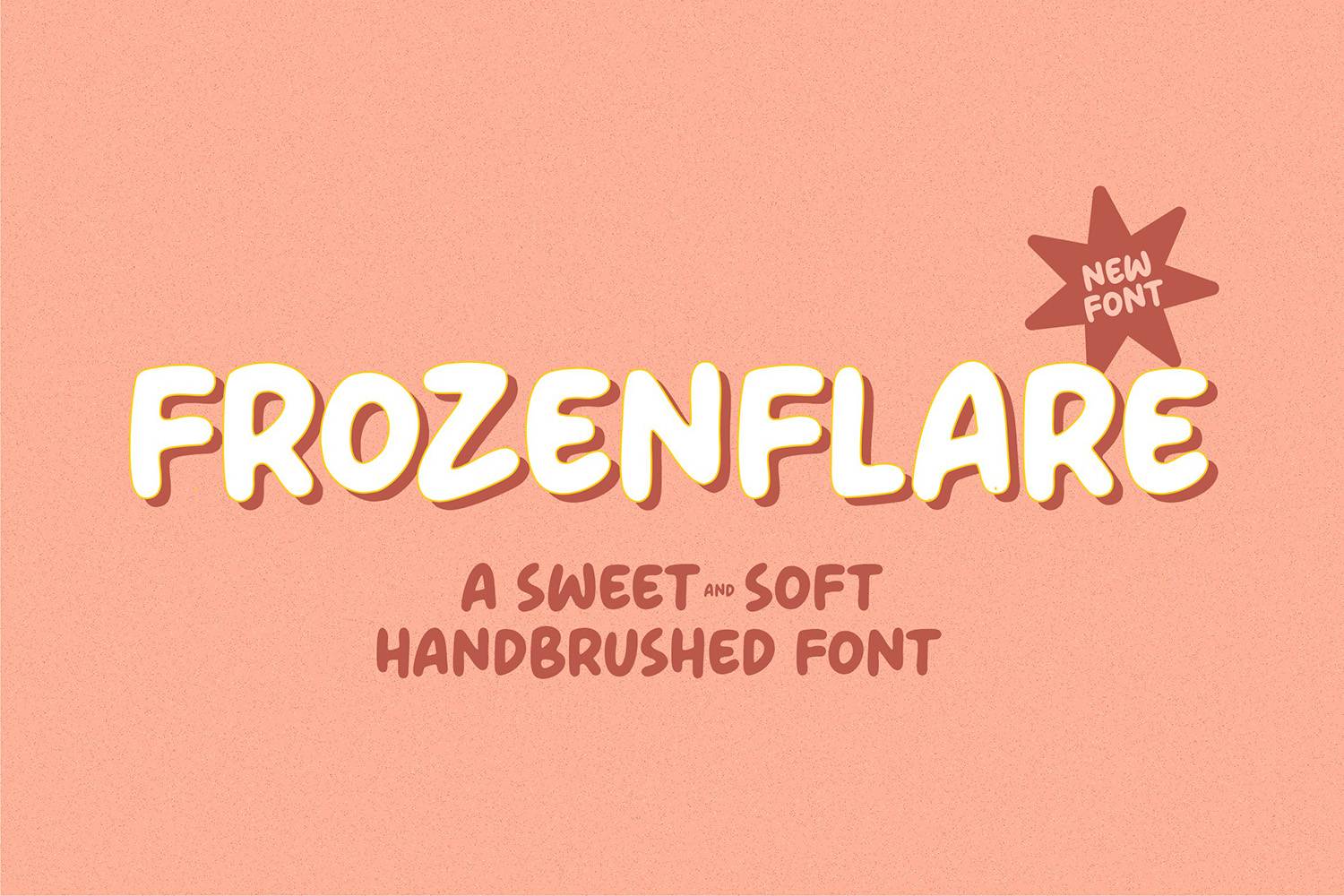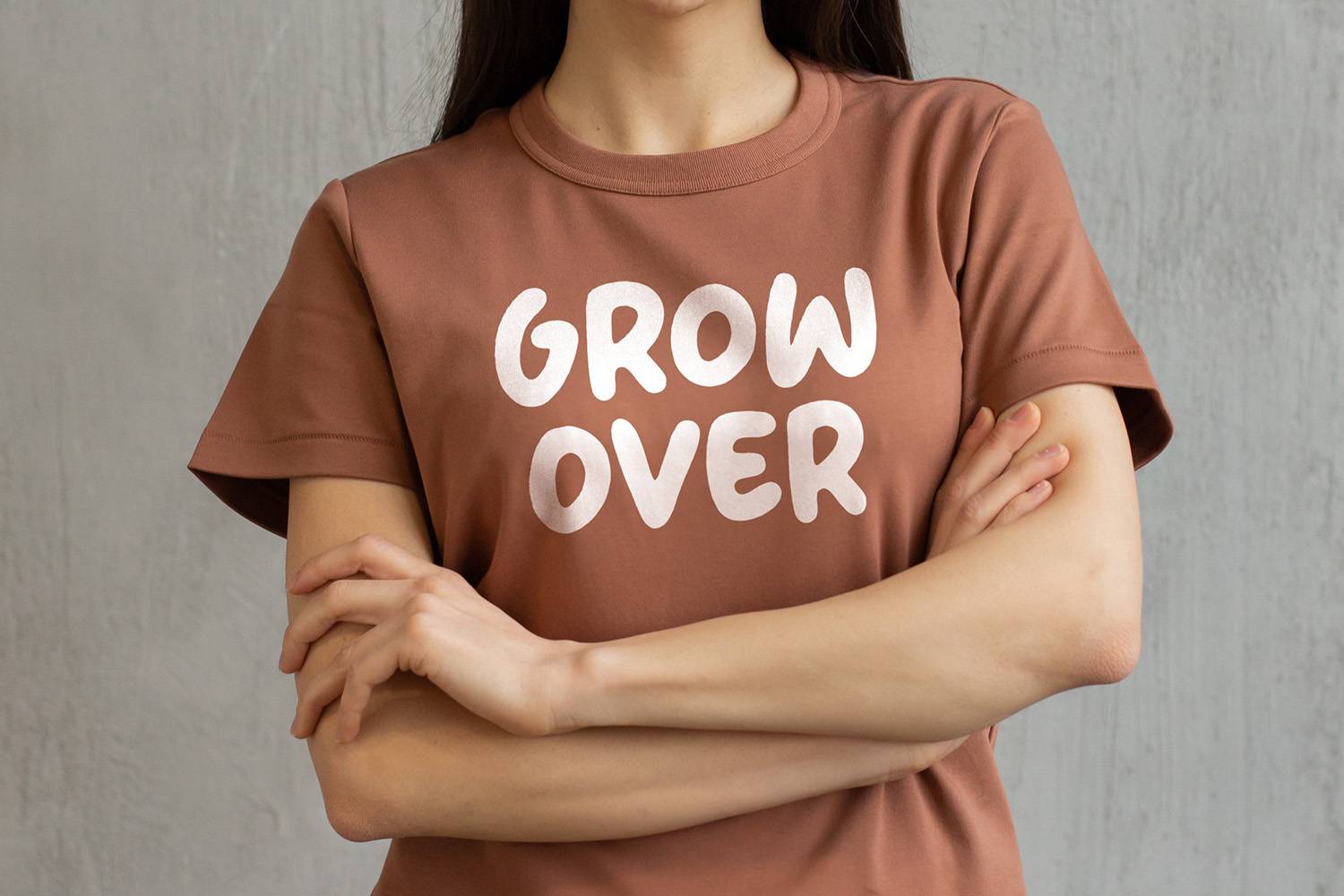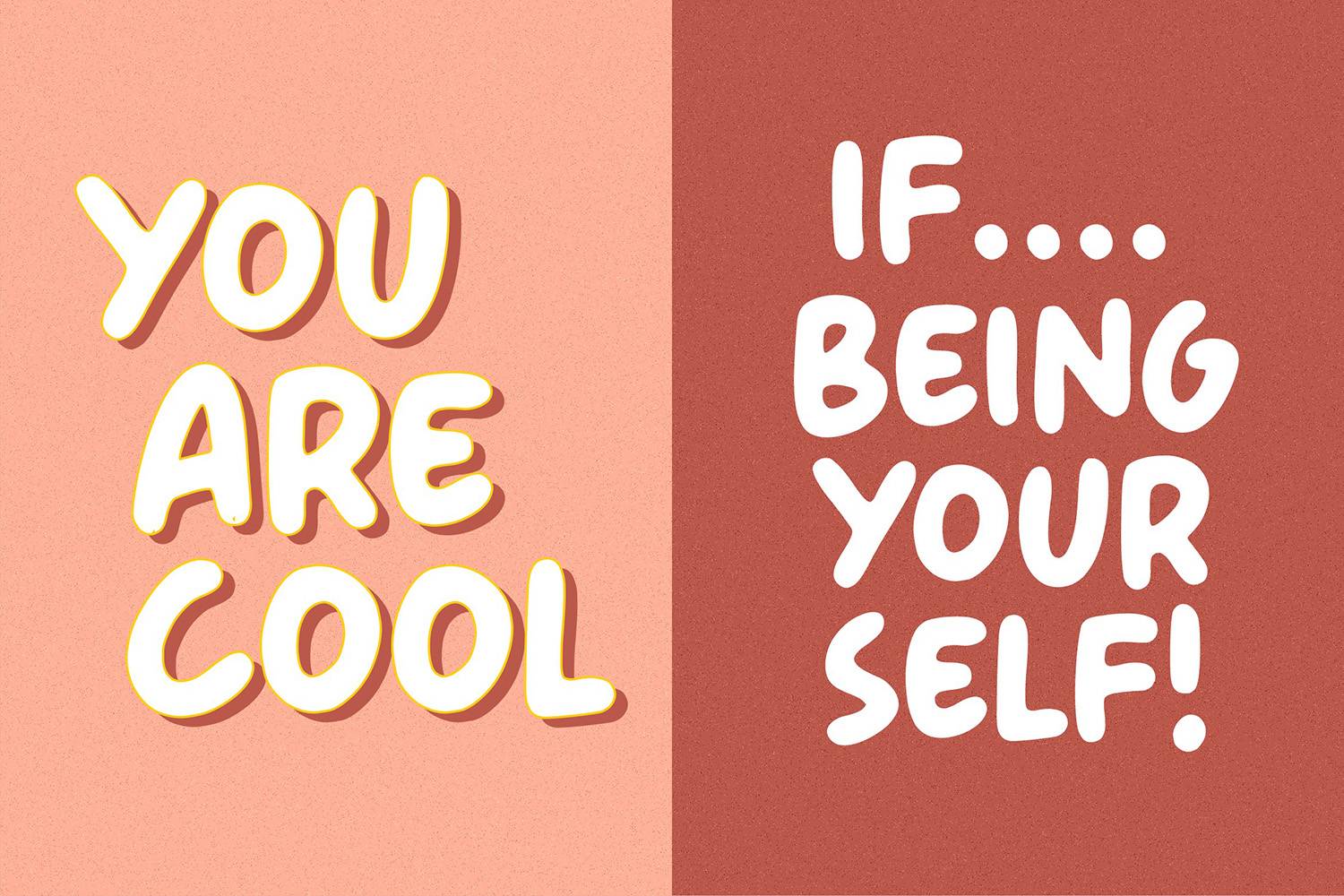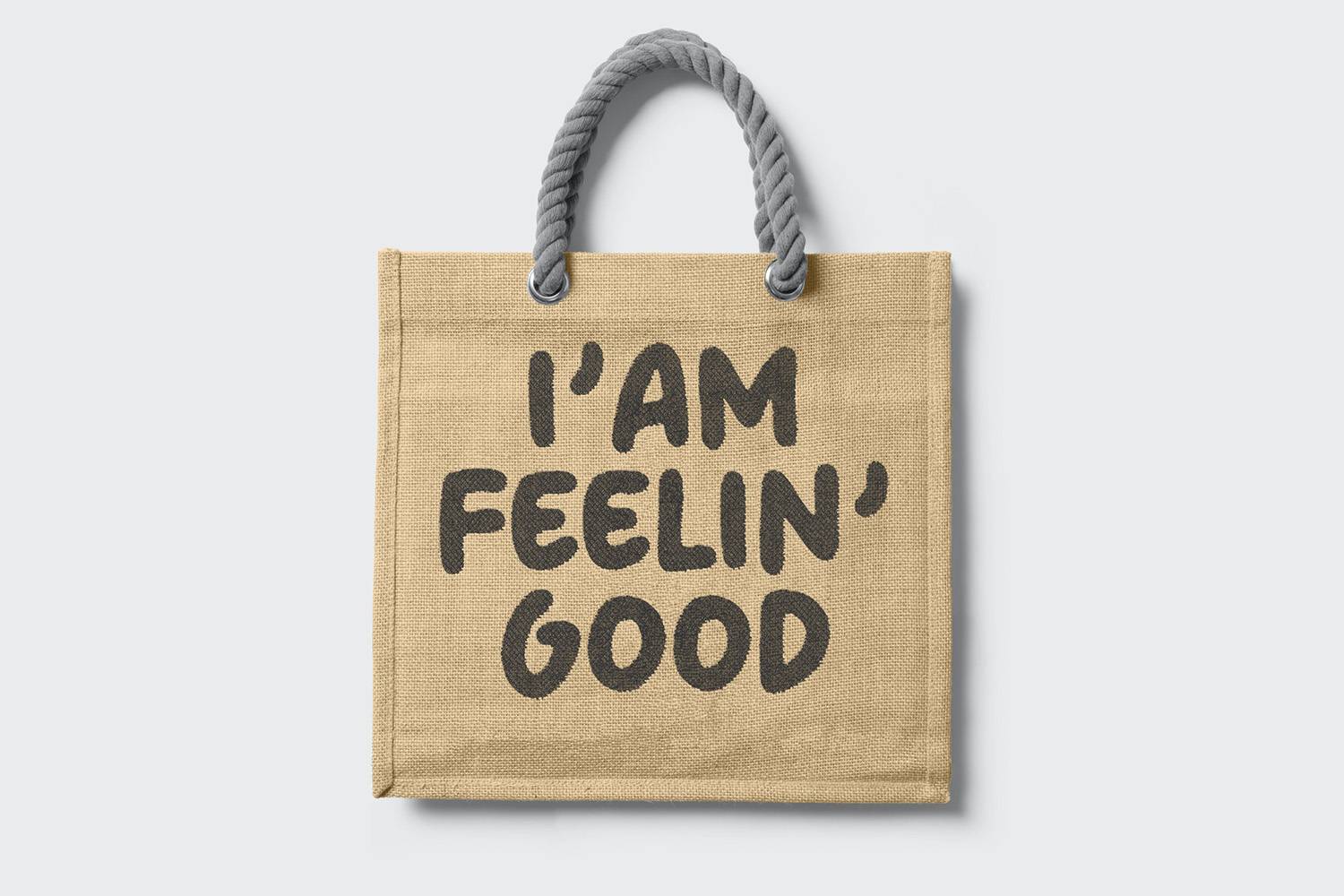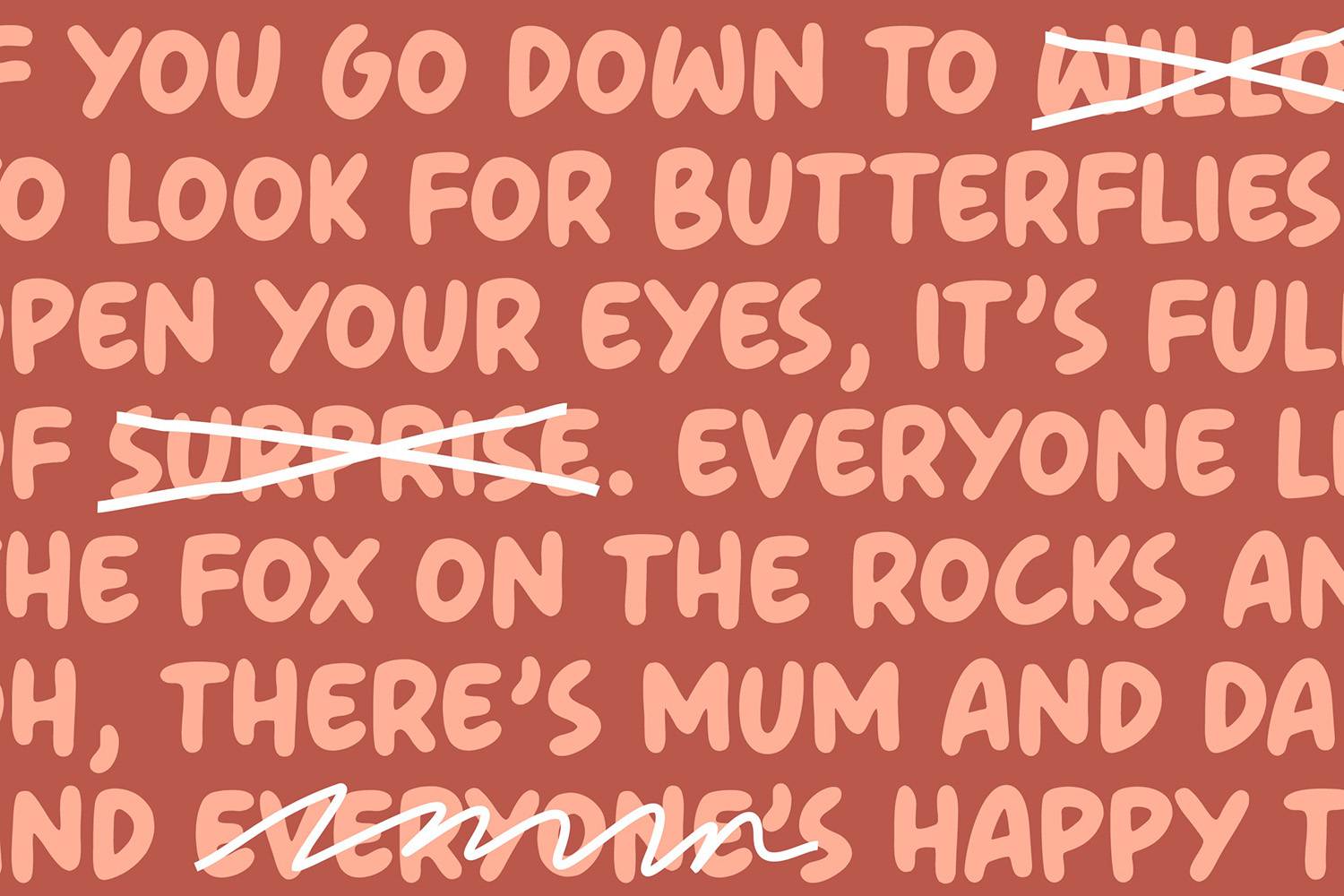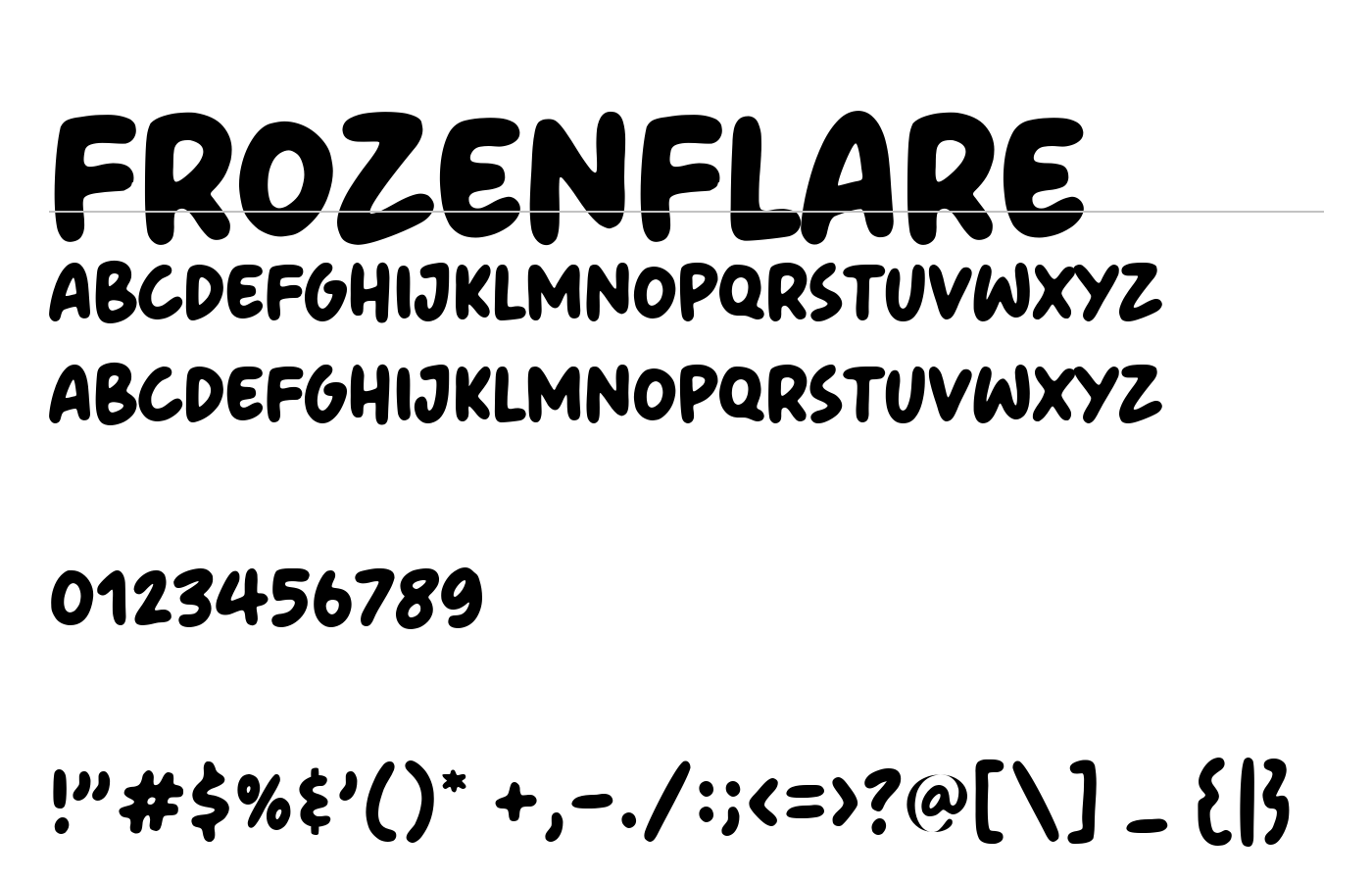
Frozenflare is a playful, bold sans serif font with a bubbly, hand-drawn feel, featuring rounded, thick strokes and a lively, casual character. Its informal style makes it perfect for fun, friendly branding, children’s materials, and eye-catching headlines where approachability and warmth are key.
Frozenflare Font
About Frozenflare Font
| Font family | Frozenflare Font |